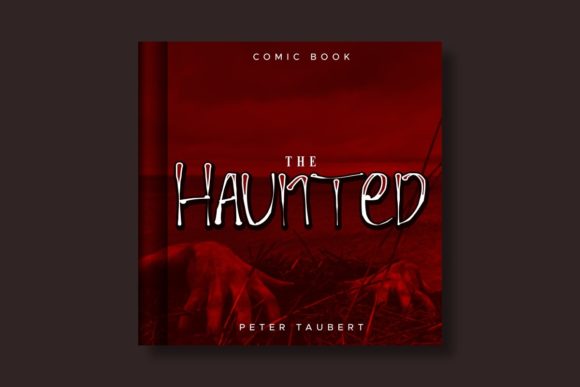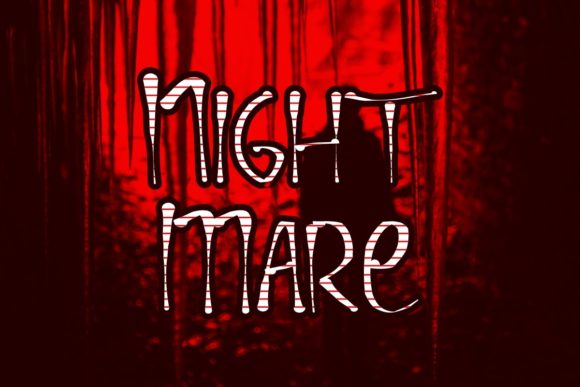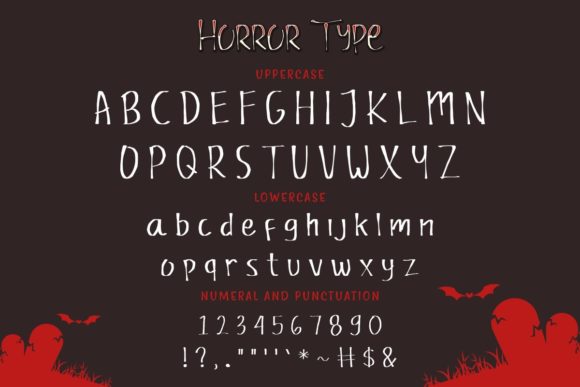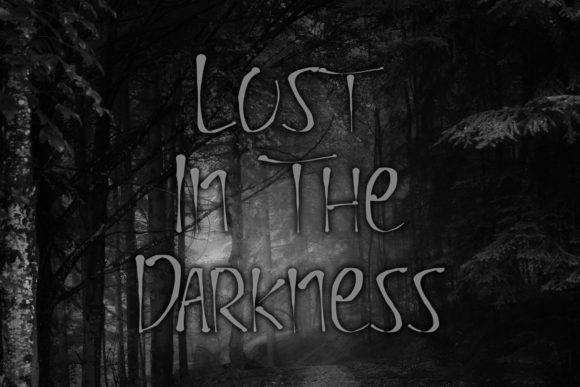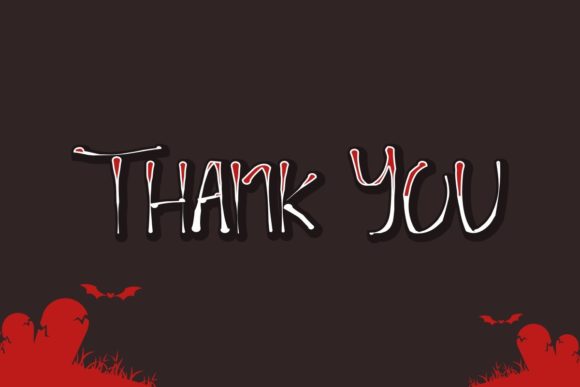
Introduction to Horror Type Font Font
Fonts play a crucial role in design, and the Horror Type Font font is a typeface that brings both character and versatility to any project. Whether you’re working on a branding project, a website, or a print design, the Horror Type Font font offers a unique style that can elevate your work.
Horror Type is a thin-lettered and creepy display font.
It is perfectly suitable for any Halloween-related project or crafty idea The only limit is your imagination.
Key Features of Horror Type Font Font
Why Choose Horror Type Font Font?
The Horror Type Font font is more than just a typeface – it’s a design tool that helps you communicate your message with style and clarity. Its unique character set and versatile design make it suitable for a wide range of applications, from elegant invitations to bold headlines.
With its carefully crafted letterforms and balanced proportions, the Horror Type Font font ensures readability and visual appeal across all mediums.
What makes Horror Type Font font special?
The Horror Type Font font stands out with its unique design, exceptional readability, and versatility across various design applications.